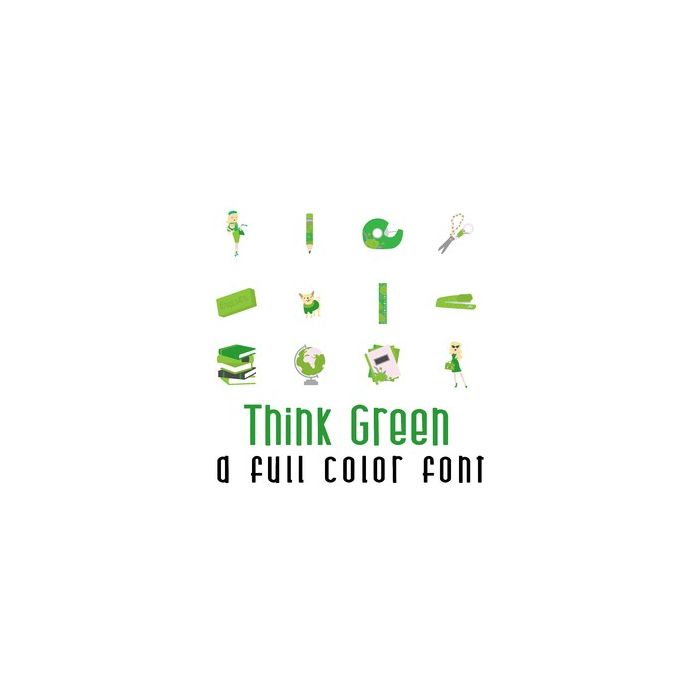
This adorable full-color doodlebat font features 26 beautiful green office, or school supplies and green business lady fashion. Perfect for cards, crafts, gifts, decor, scrapbook pages, planner stickers, and more!